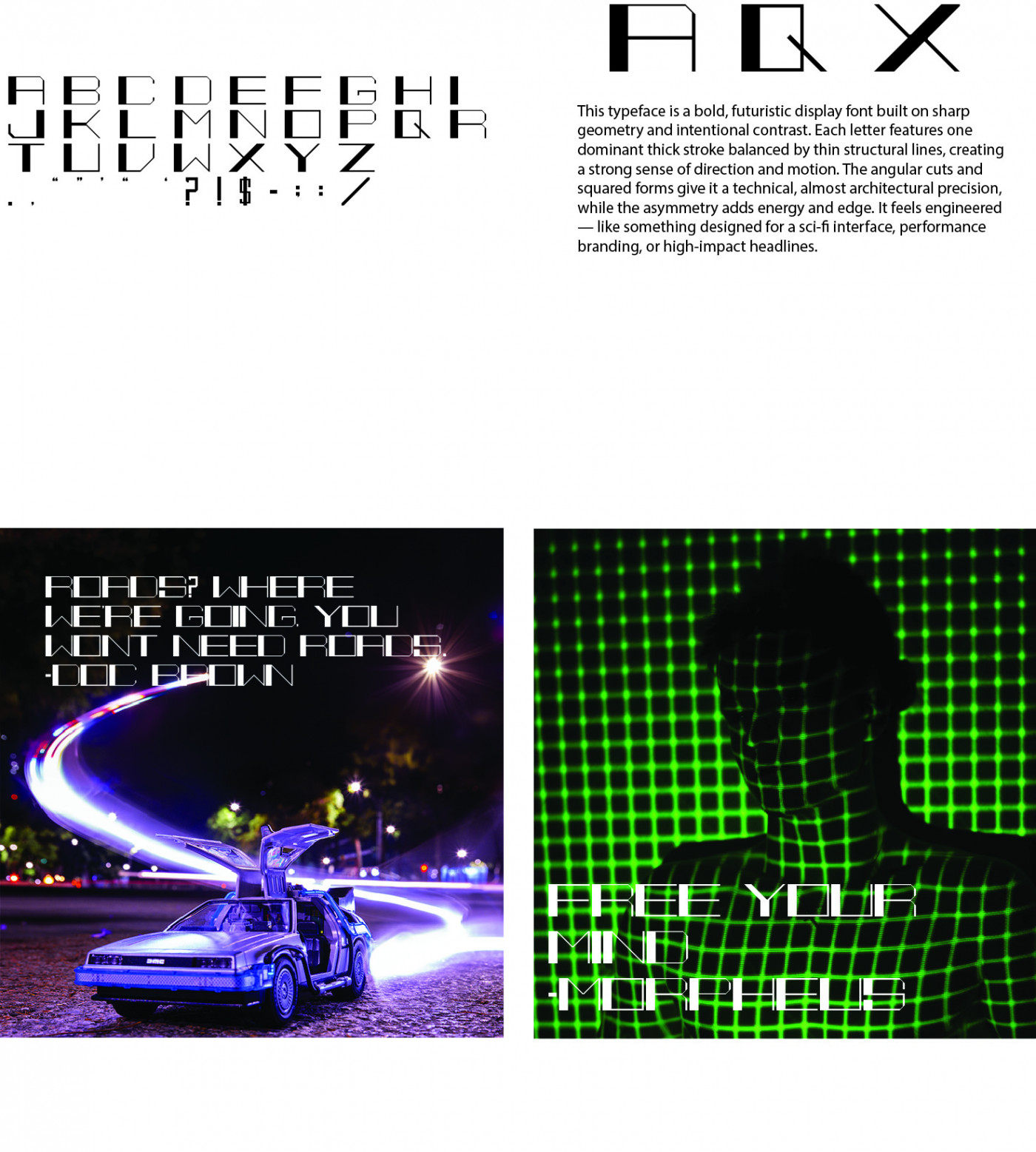
• This typeface is a bold, futuristic display font built on sharp geometry and intentional contrast. Each letter features one dominant thick stroke balanced by thin structural lines, creating a strong sense of direction and motion. The angular cuts and squared forms give it a technical, almost architectural precision, while the asymmetry adds energy and edge. It feels engineered — like something designed for a sci-fi interface, performance branding, or high-impact headlines.
Datashiftby TGG MattyP